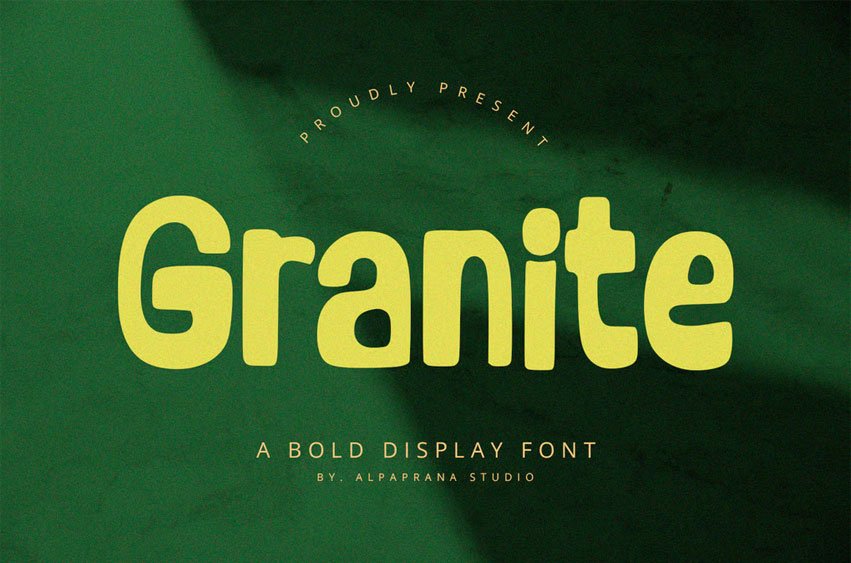
Granite Font is a bold display font with a modern and playful feel. It will certainly amaze your readers. It is perfect for your upcoming projects.
• Uppercase & Lowercase
• Numerals
• Punctuations (OpenType Standard)
• Accents (Multilingual Characters)
• Ligatures and Alternative Style Stylistic Set